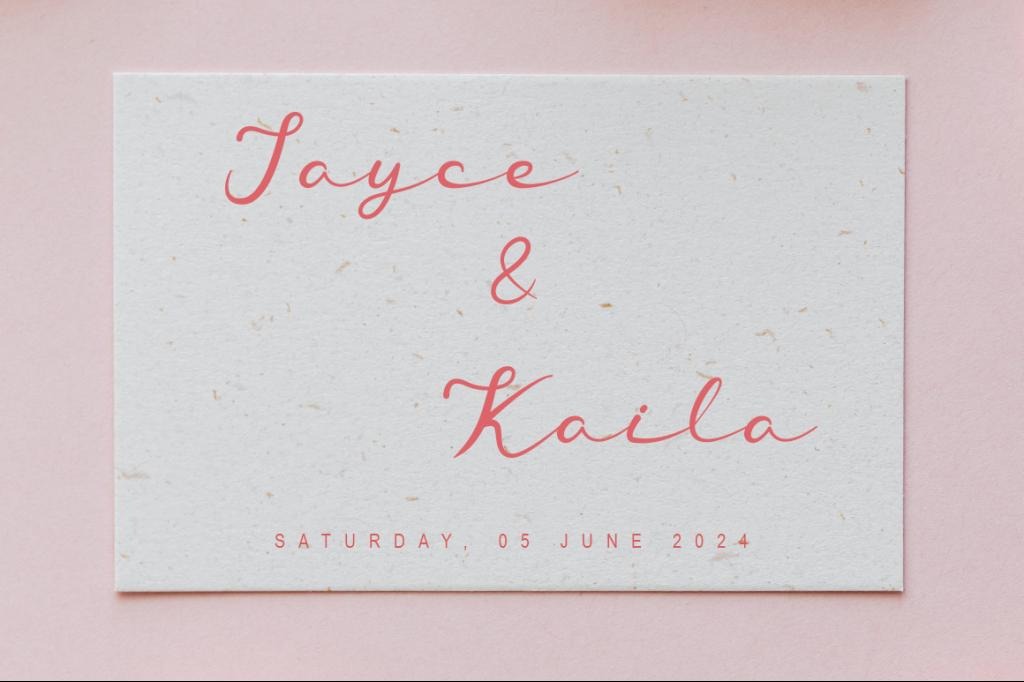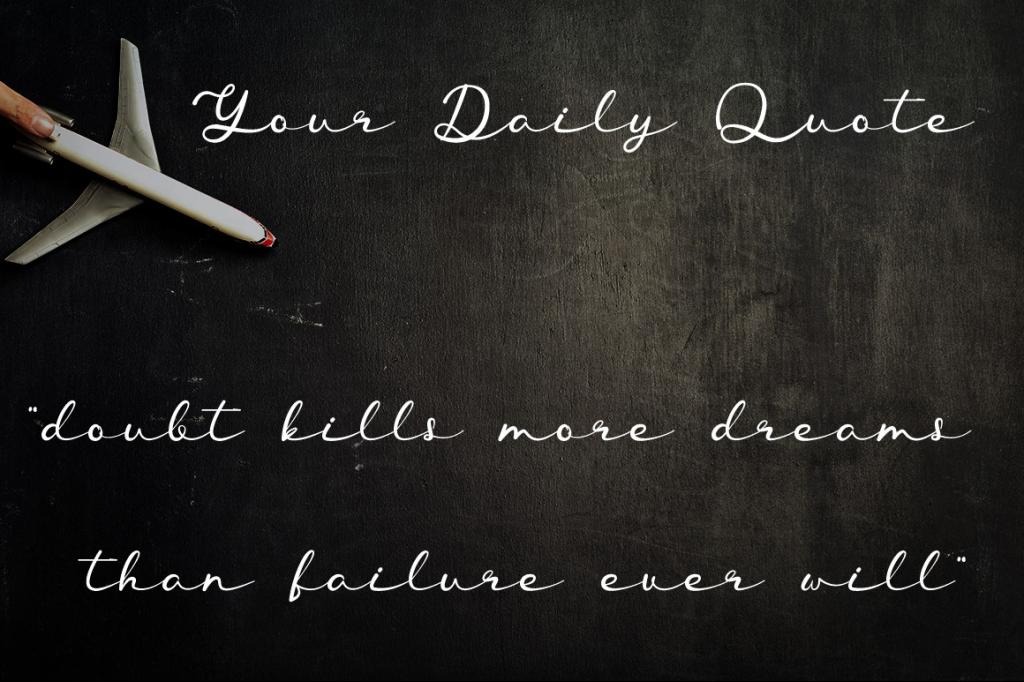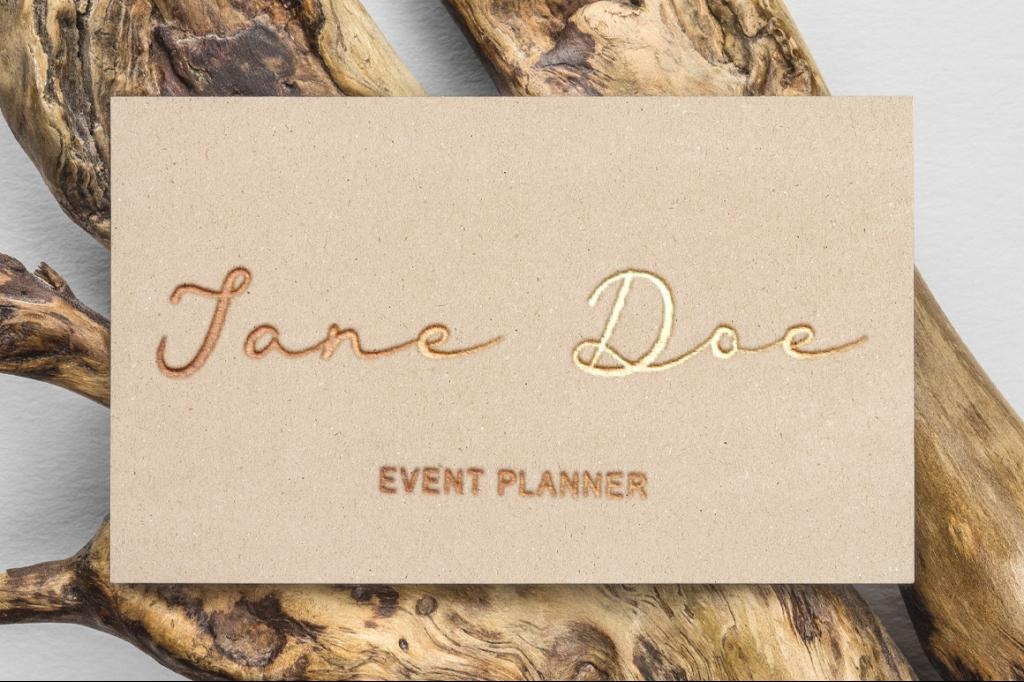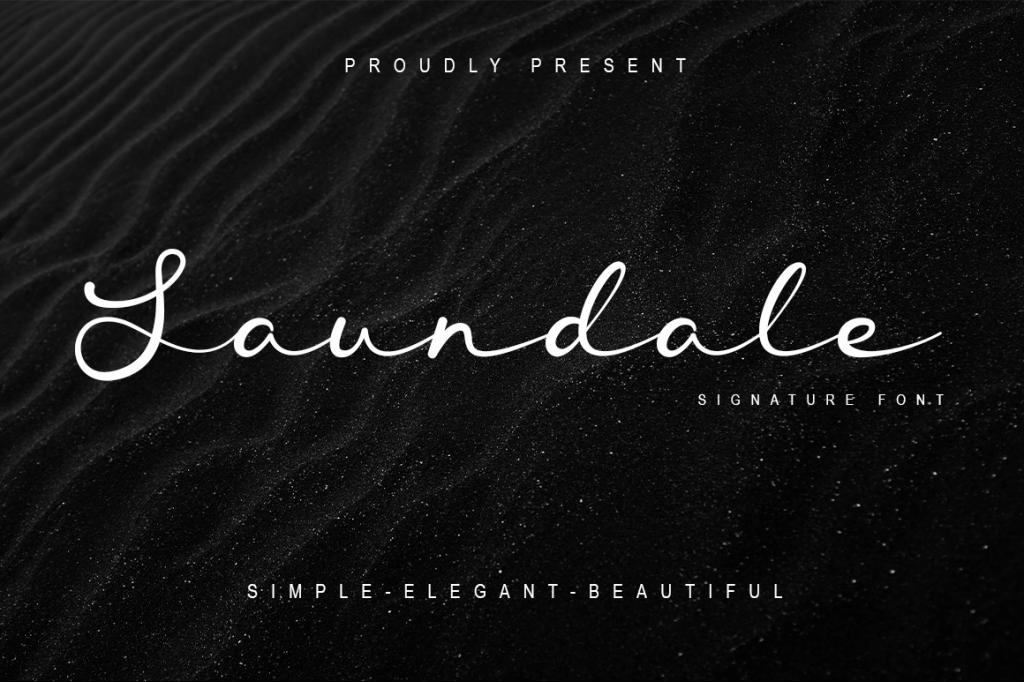
Saundale Font
Saundale Handwritten Font
This is a casual handwriting script typeface from designer Rikbar Creator. The font handcrafted for any of your special projects : wedding, branding, florist signature, bakery menu etc. This font was particularly crafted for those who need a beautiful and refreshing look to their designs. It can be used for many projects, such as label, logo designs, online signatures, product designs, signage, title and much more!